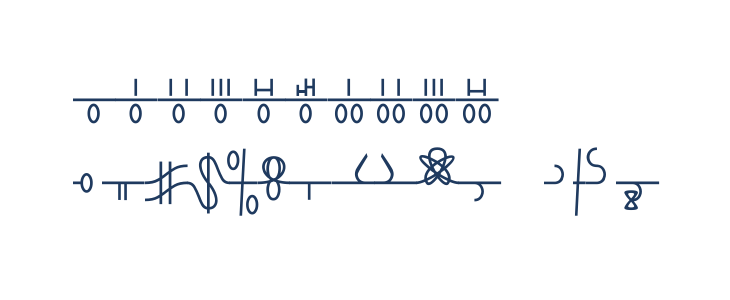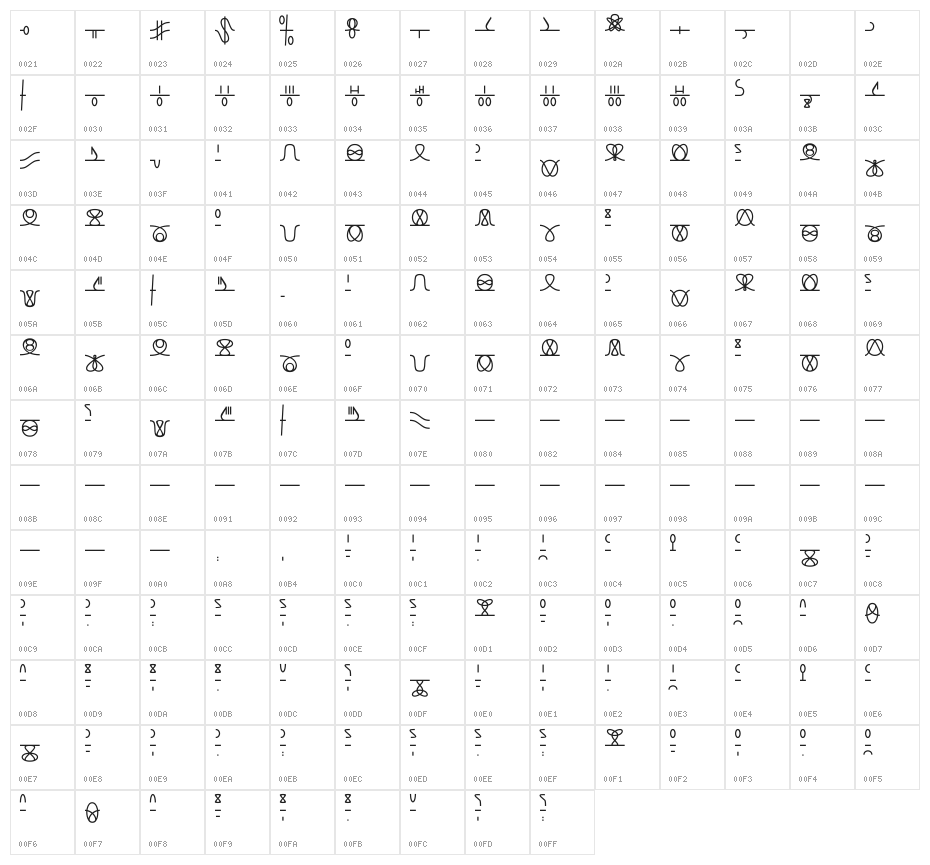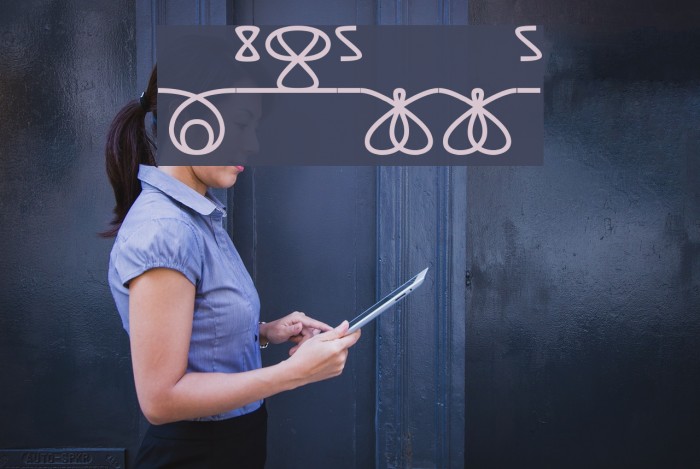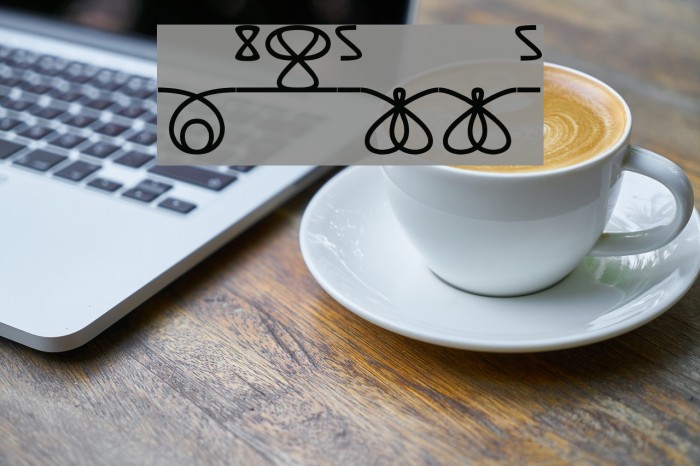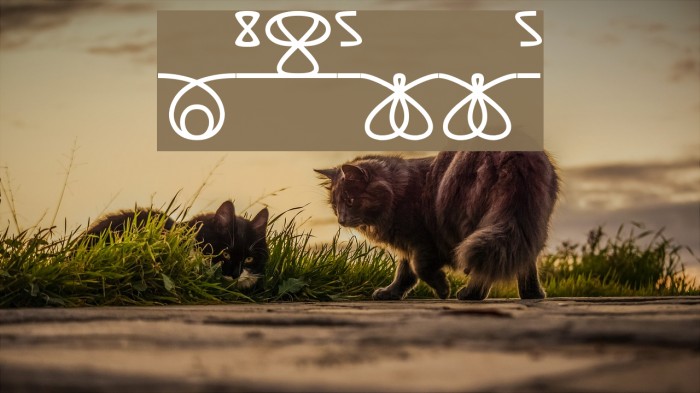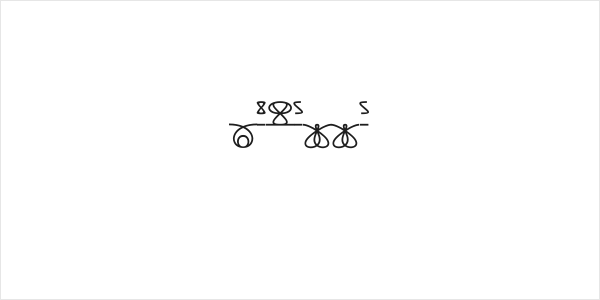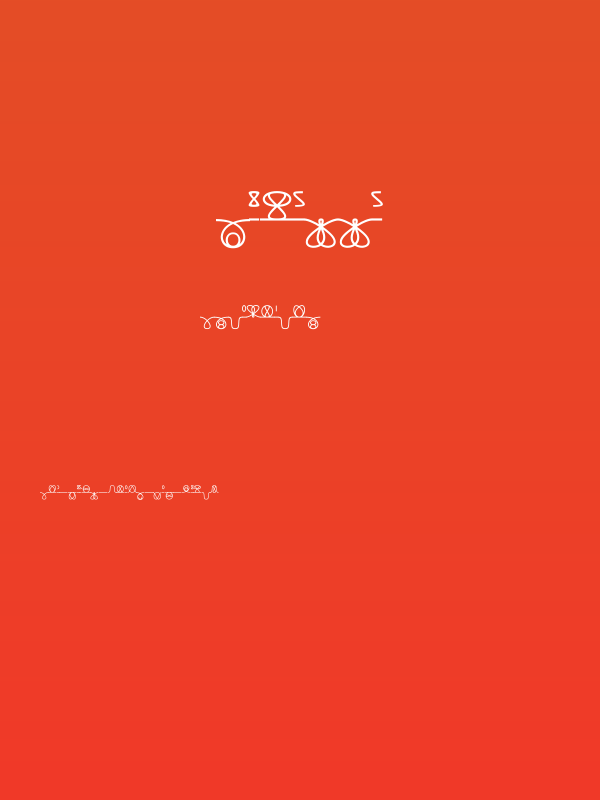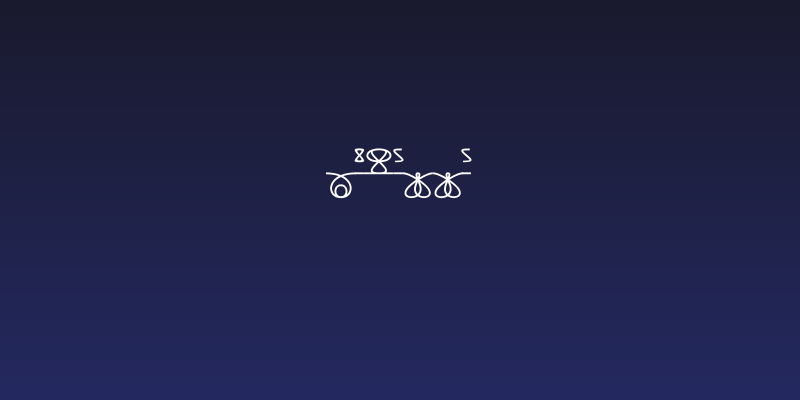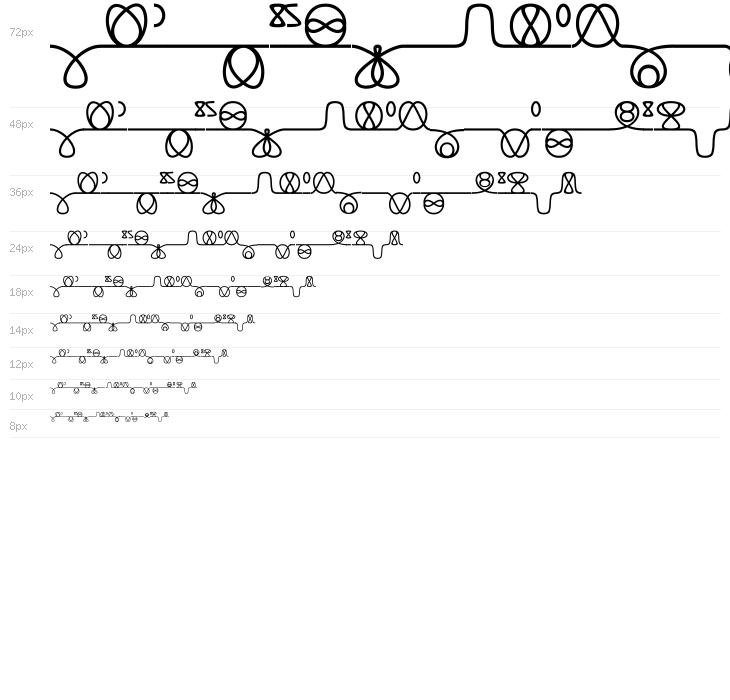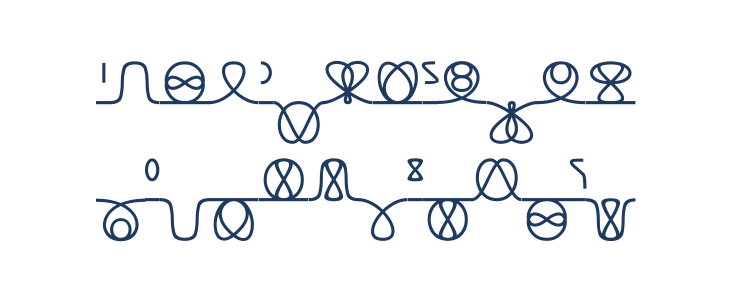
Numikki Font
Numikki Description
This design features an intricate and abstract pattern that resembles a series of interconnected loops and curves, creating a visually complex and decorative appearance. The characters are not easily distinguishable as traditional alphanumeric symbols, suggesting a more artistic or symbolic representation rather than a functional typeface. The overall look is highly decorative, with an emphasis on fluidity and continuity in the line work, making it more suitable for artistic or ornamental purposes rather than practical text usage.
| Use Case | Artistic designs, decorative elements. |
| Proposed Projects | Ideal for artistic projects, decorative elements, or abstract art pieces where traditional readability is not required. |